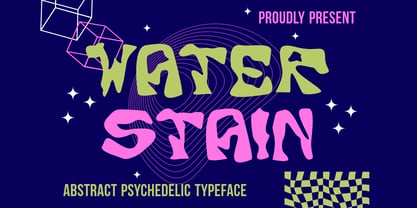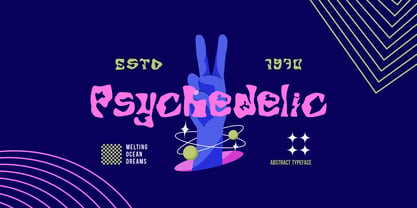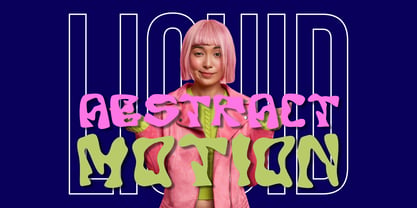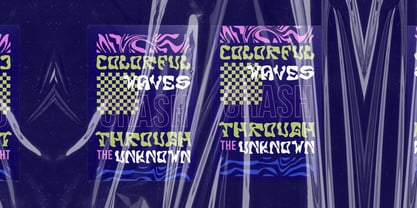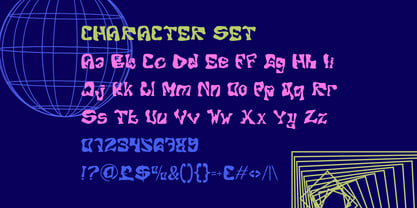
Water Stain
por Shanaf
La familia tipográfica Water Stain fue diseñada por Yesie Erma Yunita y publicada por Shanaf. Water Stain contiene 1 estilos. Más información sobre esta familia
Water Stain – Abstract Water Font delivers a splash of surrealism with a bold, fluid structure inspired by psychedelic art and liquid forms. Each character appears as though it’s melting or dancing, creating dynamic motion even when static. The contrasting shapes of the uppercase and lowercase letters add vibrant rhythm, perfectly capturing the unpredictable essence of retro, abstract style. Carefully constructed curves and erratic edges mimic waves, ink blots, and spilled watercolor, evoking an organic yet modern visual narrative.
This display font is an excellent choice for projects that seek to break away from visual rigidity. Whether used in album covers, art festival posters, fashion editorials, or branding for bold products, Water Stain demands attention. It thrives in settings that welcome creative freedom—perfect for editorial spreads, retro-inspired campaigns, music merchandise, or lifestyle packaging. Designed for maximum visual impact, it balances chaos with charm through an expressive typographic identity.
Diseñadores: Yesie Erma Yunita
Fundición: Shanaf